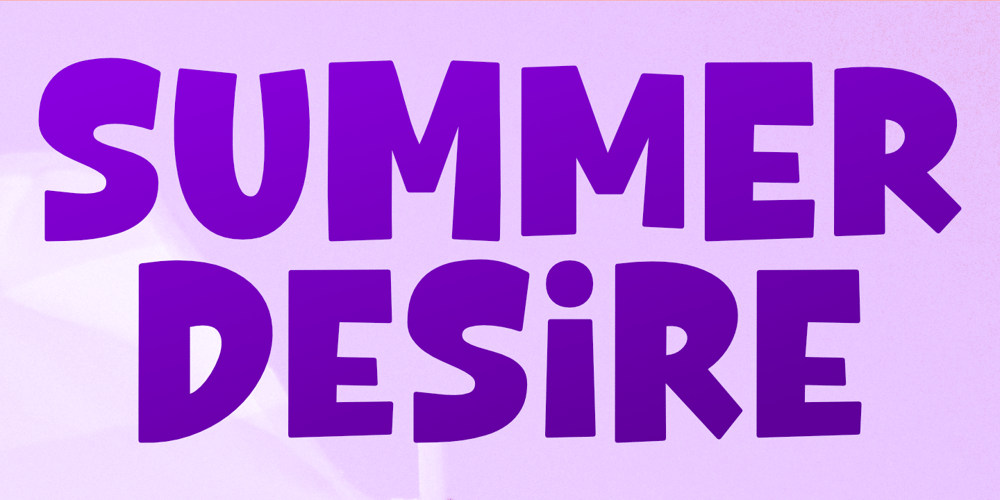
Summer Desire Font Family was designed by Nurul Hidayani and published by Olivetype. Summer Desire contains 1 styles and family package options. Summer Desire is an original typeface that’s perfect for all of your summertime and happy designs! Use Summer Desire in your designs to create a lively, optimistic mood. Its playful, and lighthearted vibe is perfect for any design that needs that extra umph. Make your next blog post, social media update, or poster the most memorable thing your customers have ever seen! And you can also use it for logos, business cards, posters, headlines, T-shirts, product packaging, and more.So what’s included : Basic Latin Uppercase and Lowercase Numbers, symbols, and punctuations Multilingual Support. Accented Characters : ÀÁÂÃÄÅÆÇÈÉÊËÌÍÎÏÑÒÓÔÕÖØŒŠÙÚÛÜŸÝŽàáâãäåæçèéêëìíîïñòóôõöøœšùúûüýÿžß PUA Encoded and fully accessible without additional design software Simple Installations works on PC & Mac Thank You!